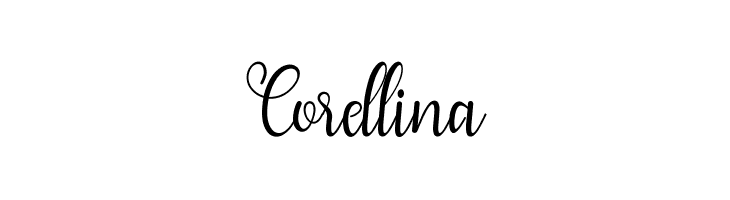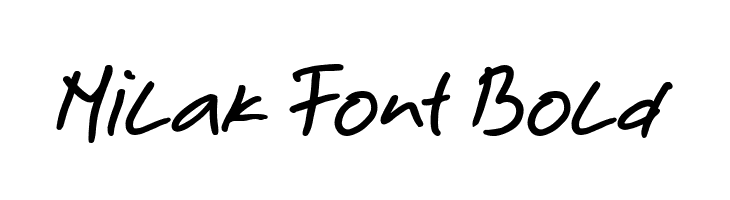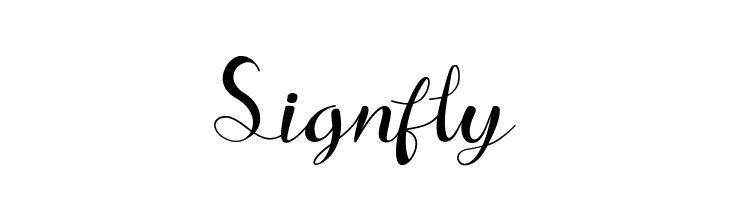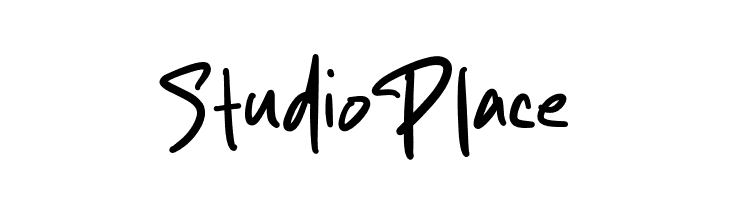
( Fonts by Airotype Studio - Personal-use only. For commercial use please contact owner. ) A playful, whimsical script font with flowing, interconnected letters. Herunterladen 31 Downloads@WebFont
( Fonts by Best Font Studio - Rifan Asri - Personal-use only. For commercial use please contact owner. ) A dynamic and expressive handwritten font with fluid, cursive strokes. Herunterladen 31 Downloads@WebFont
( Fonts by Darrell Flood - Personal-use only. For commercial use please contact owner. ) A bold, brush-style font with an energetic, hand-painted look. Herunterladen 31 Downloads@WebFont
( Fonts by Doehantz Studio - Abduhan Fikhri - Personal-use only. For commercial use please contact owner. ) A flowing, cursive script font with elegant loops and swirls. Herunterladen 31 Downloads@WebFont
( Fonts by Ef Studio - Luthfi Ef - Personal-use only. For commercial use please contact owner. ) An elegant script font with flowing, interconnected letters and ornate details. Herunterladen 31 Downloads@WebFont
( Fonts by Sabrcreative - Personal-use only. For commercial use please contact owner. ) A bold, distressed font with a vintage, stamped appearance. Herunterladen 31 Downloads@WebFont
( Fonts by UI Creative - Personal-use only. For commercial use please contact owner. ) A textured, brush-style font with an expressive, hand-drawn appearance. Herunterladen 31 Downloads@WebFont
( Fonts by Vladimir Nikolic - Personal-use only. For commercial use please contact owner. ) A bold, angular font with a gothic, blackletter style and three-dimensional effect. Herunterladen 31 Downloads@WebFont
( Fonts by Typodermic Fonts - Raymond Larabie - Personal-use only. For commercial use please contact owner. ) A pixelated, retro-style font inspired by early digital graphics. Herunterladen 31 Downloads@WebFont
( Fonts by twinletter ) A bold, playful font with thick, rounded characters and a whimsical style. Herunterladen 31 Downloads@WebFont